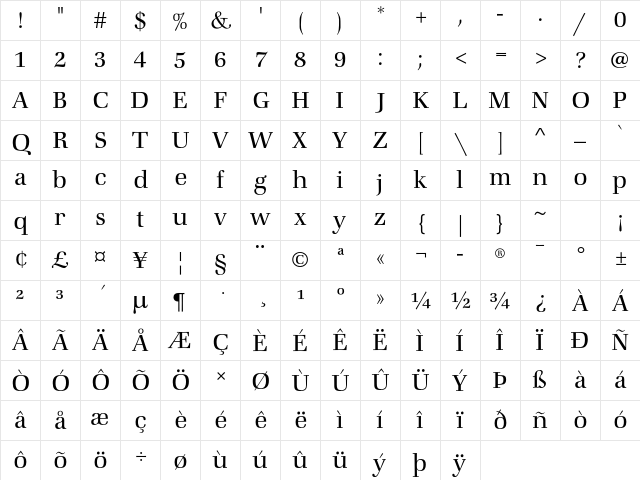
Zapf Book ITC Std Light
Designer: Hermann Zapf
Design Context for Zapf Book ITC Std
Zapf Book ITC Std is a composed and adaptable typeface that performs quietly and consistently across a wide range of design contexts. Its slender proportions lend an understated elegance to any composition.